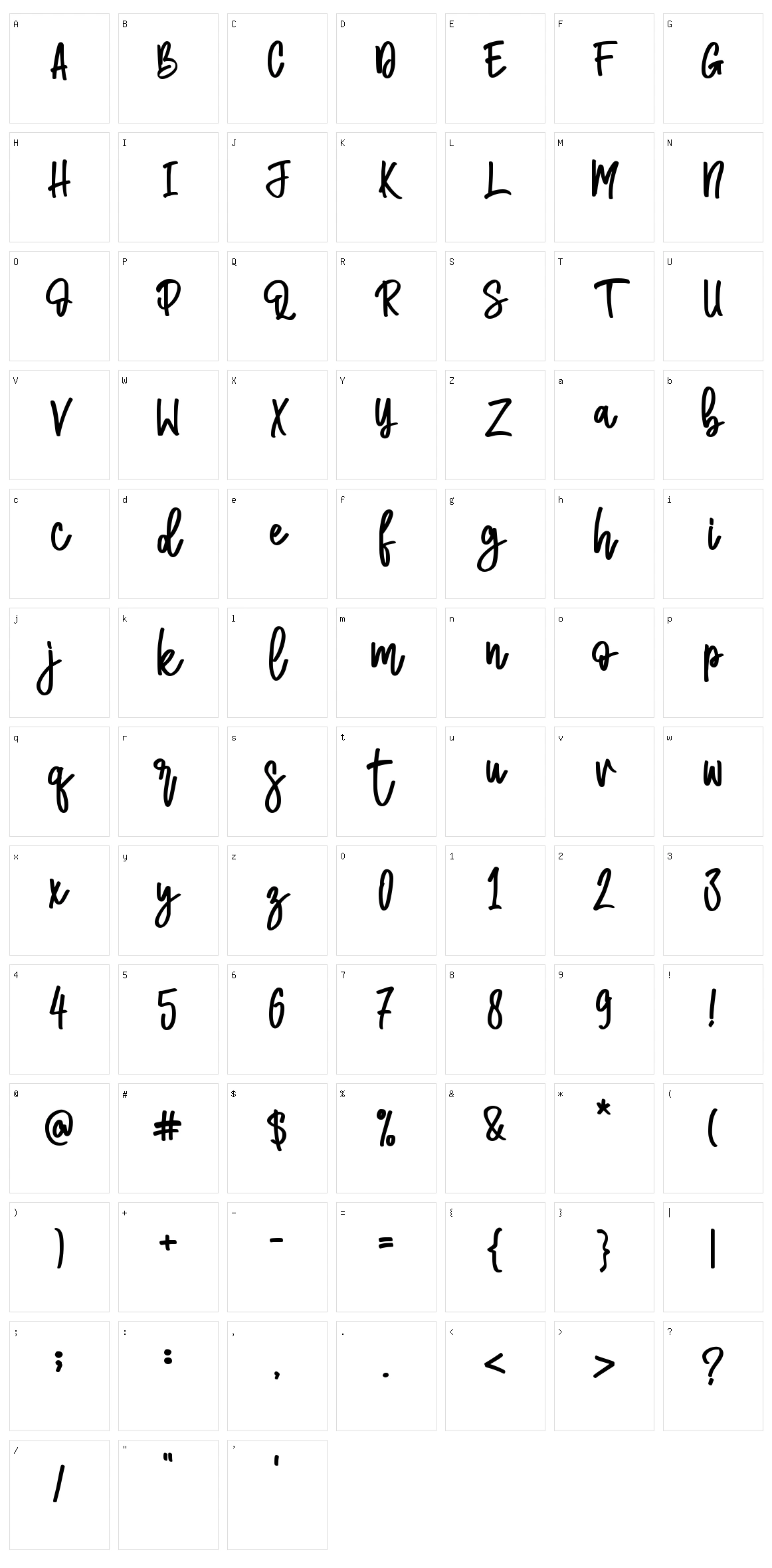
The free font Just Simple is carefully designed by Stefani Letter, showcasing a thoughtful balance of creativity and usability and falls under the Script font style. When you download the ZIP file, it contains only 120.6 KB of font files, making it lightweight and quick to download. Please review the license details below to understand permitted usage and distribution rights. If license information is not available, we recommend using this font for personal projects only or contacting the author directly for commercial usage permissions.